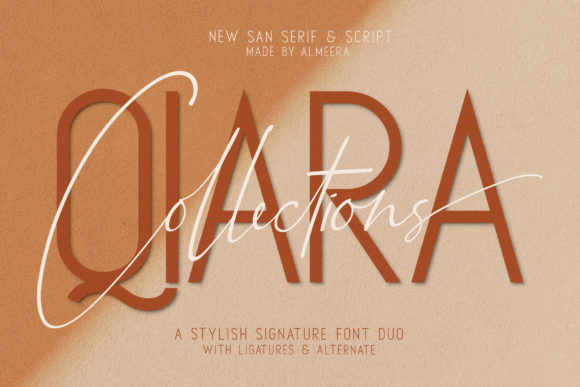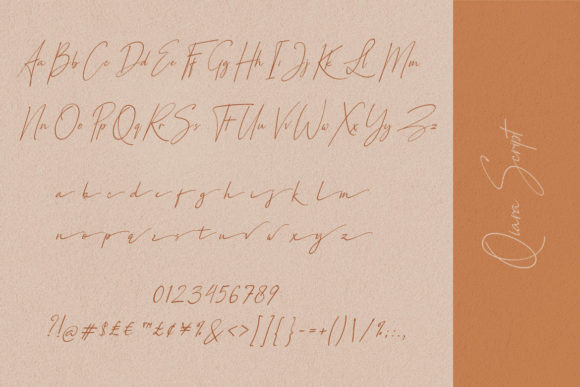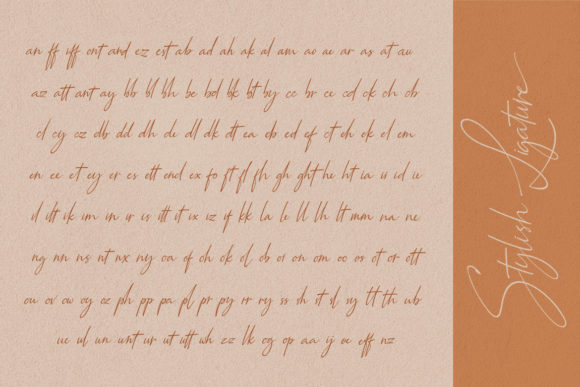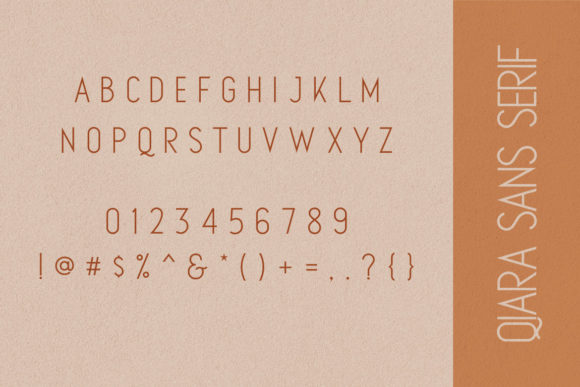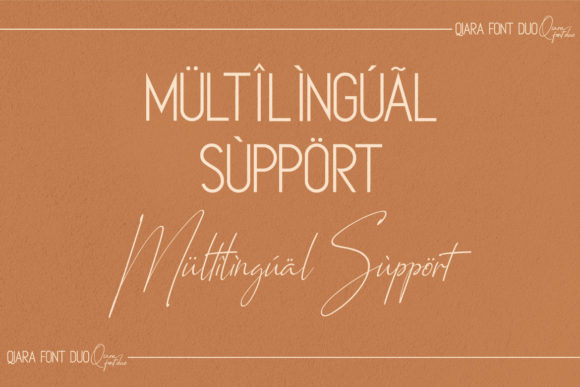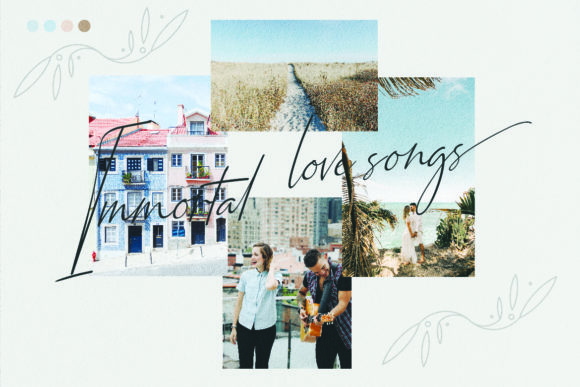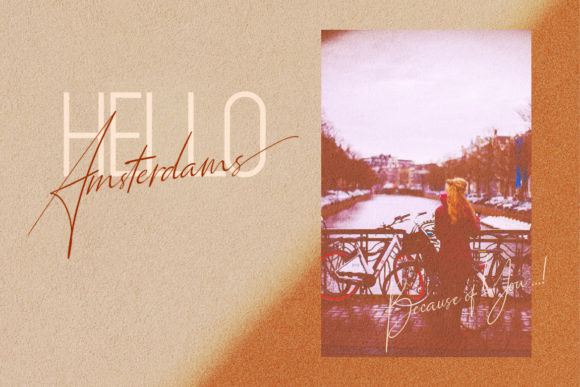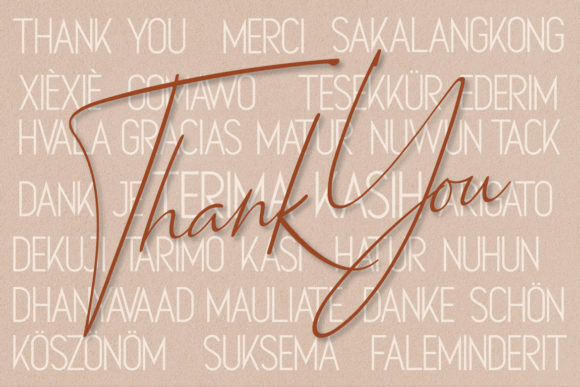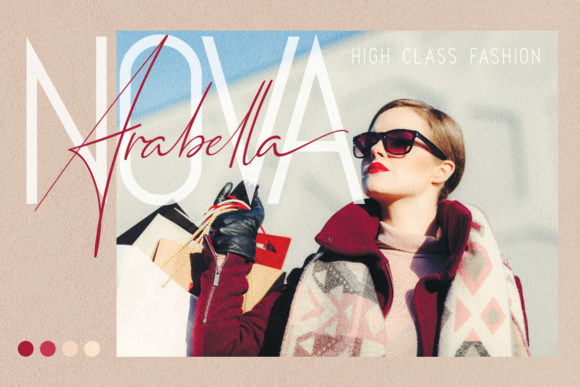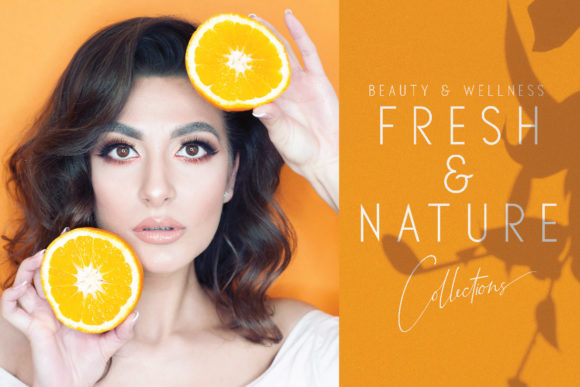
Qiara Duo Font
About Qiara Duo Font
Qiara Font Duo adds a touch of luxury and style to your project. Consists of a modern san serif and a modern calligraphy font style.